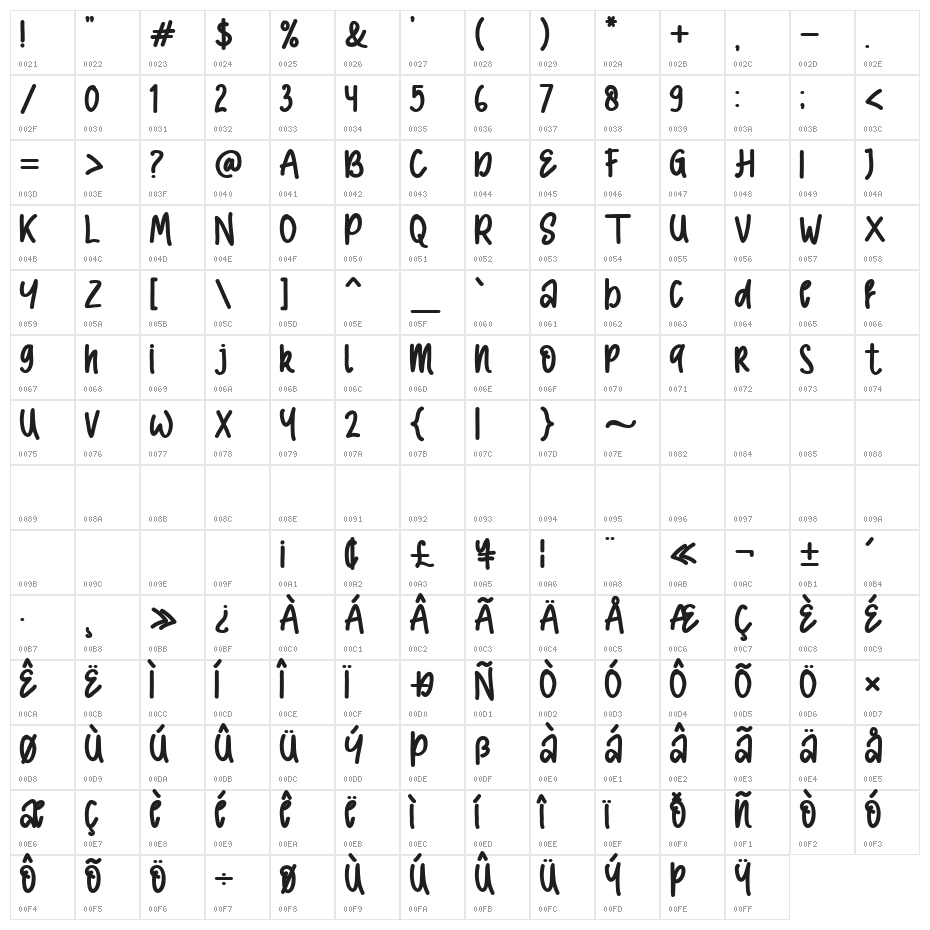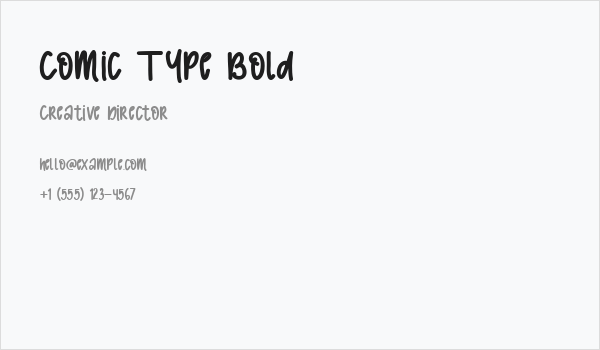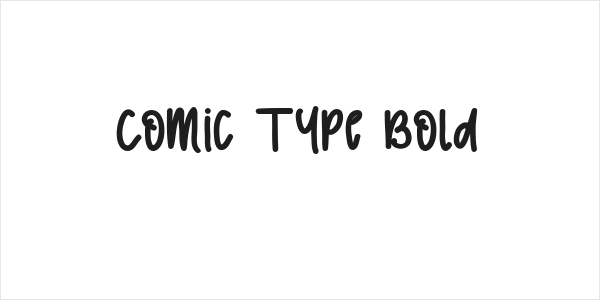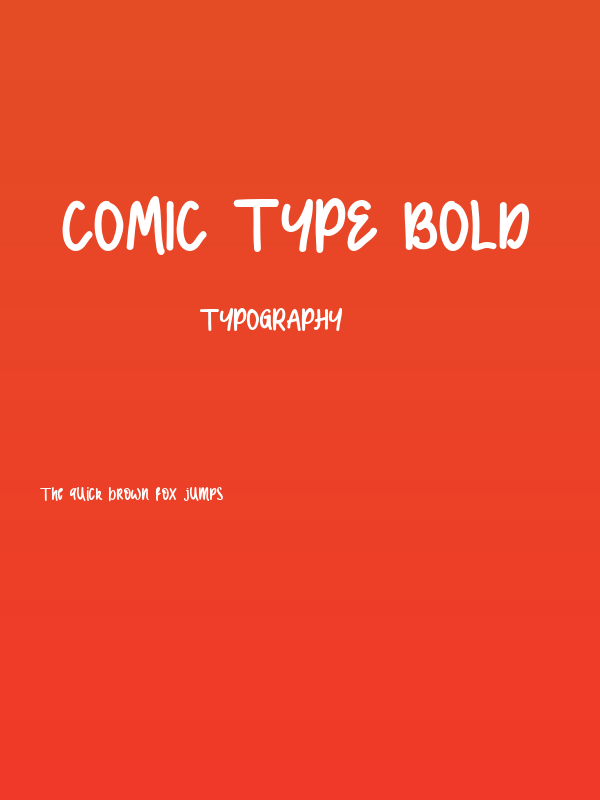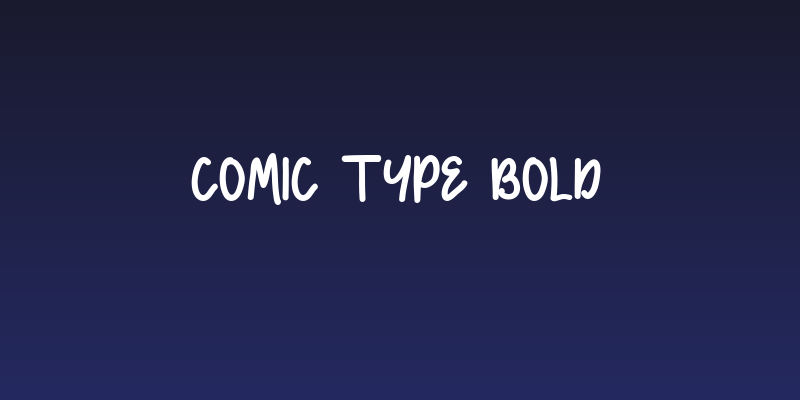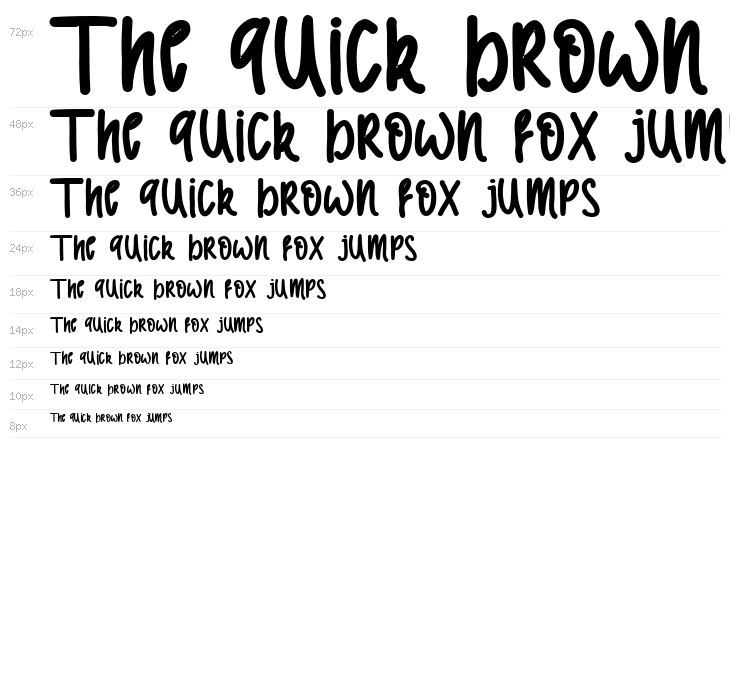
Comic Type Bold Font
Comic Type Bold Description
This playful and bold font exudes a lively and informal vibe, reminiscent of comic book lettering. Its rounded, thick strokes and slightly irregular shapes give it a hand-drawn appearance, making it perfect for projects that require a fun and approachable aesthetic. The uppercase and lowercase letters are well-balanced, with consistent stroke widths that maintain readability. The numerals and special characters are designed to match the whimsical style, ensuring a cohesive look across all text elements. This font is ideal for creative projects that aim to capture attention and convey a sense of humor or lightheartedness.
Overall StylePlayful, Informal, Comic
Proposed ProjectsIdeal for comic books, children's books, playful branding, posters, and greeting cards.